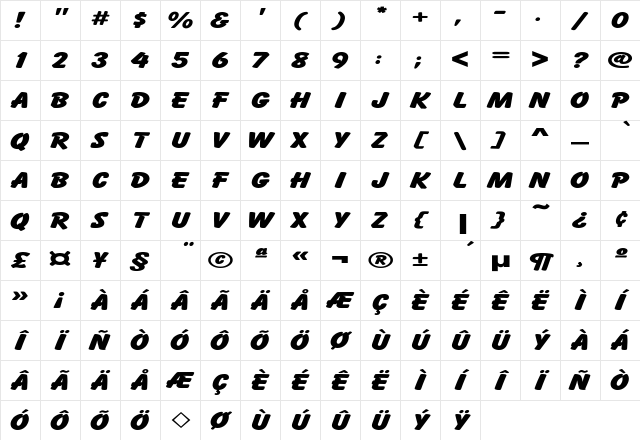
Cartoon Expanded Regular
Complete Cartoon Expanded Regular glyph index. Displaying only characters natively supported by Cartoon Expanded Regular font.
Design Context for Cartoon Expanded
Cartoon Expanded has an approachable, lighthearted character - its loose, expressive forms are well-suited to children's content, casual branding, and fun-first design.
Font Pairing: Pairs well with a rounded or humanist sans for body copy, maintaining the friendly tone without relying on Cartoon Expanded to carry extended reading.
Pro Tip: Use Cartoon Expanded at larger display sizes where its expressive character can land. Pair with a clean, simple sans for body copy to maintain readability.